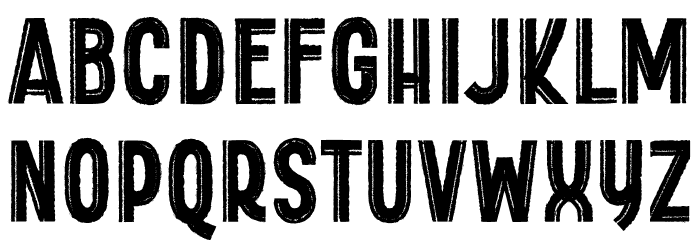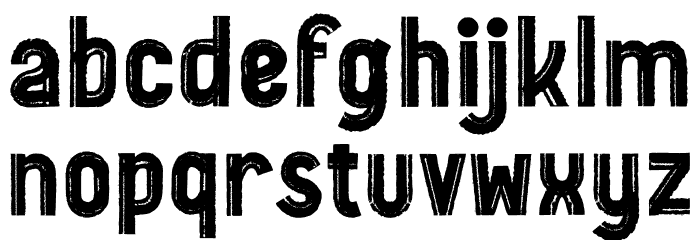
Westblue Personal Use Font
This font features a bold, distressed style with a hand-crafted appearance. The uppercase and lowercase letters have a consistent width, giving it a uniform look. The texture of the letters suggests a vintage, worn feel, making it ideal for projects that require a rustic or retro aesthetic. The numerals and special characters maintain the same distressed quality, ensuring a cohesive look across all text elements. The font's boldness and unique texture make it stand out, perfect for eye-catching designs.
A bold, distressed font with a vintage, hand-crafted look.
- Font: Westblue Personal Use
- Proposed Projects: Ideal for posters, branding, packaging, and any design needing a rustic or retro touch.
- Category: Decorative/Display
- Overall Style: Vintage